Top 15 Sans Serif Font to Use on Your Resume
Top 15 Sans Serif Fonts to Use on Your Resume will be your choices to make a formal resume. Attract the business owner to recruit you by making a sophisticated resume. Here is the font you may choose:
1. Kanwode Sans Serif Font
Drafting your resume starts with a good choice of font. Recruiters typically scan resumes in seconds. It means you have a limited chance to catch their attention and impress them. Putting effort and consideration into your font choice can help you demonstrate your professionalism and attention. With a resume, there is a way to detail and express your personality and uniqueness at the same time.
Sans Serif font is used for advertisements, titles, presentations, and brands. However, lots of modern styles of it are available now. It has geometrical touch, curved shape, and sharp edges that make it more clear than before. The proportional design makes everyone could read it well. Without too much ink to print, it keeps great to concern as your proposal font or annual report.
The attractive font comes from Kanwode. This one is a simple font that has a clean, classic, and more professional look. Kanwode is also easier to read. It is enabling recruiters to read and focus on the content of your resume should be your number one priority. Complex fonts that are hard to read can already put off recruiters who will only put your resume.
2. Fort Avenue
The optimal resume font size is from 10 to 12 points. It is ideal to keep your resume to only one or two pages, so you can try starting with a size 10 font. See how your font size will impact your resume layout. If it is not readable enough, size it up if you have more space but never go down below 10 points just to keep your resume within 2 pages.
Unique and attractive are two words to explain Fort Avenue. You may use it for cinema and posters. However, it is better to make it a video content title because its light of gold could shine every time. Created to make a huge statement, it even comes in unique styles and textures to offer a vintage feel to any work.
3. Danzone
You can add special details to your resume, but in Danzone type, you don’t need to while still keeping it uniform. Try using a different font and a bigger font size for your name and section headings. On the other hand, emphasizing certain text by bolding, underlining, or italicizing. Remember to be consistent with the style and keep it up to only two fonts as multiple fonts can distract the reader.
It has a geometric shape on each side. It is giving the impression of neatness and character. Danzone is also can be used in posters, invitations, book covers, logos, or packaging of movies. It helps to gain great promotion. A special look will be in the resume.
4. Bunch Bonaire
Serif font is actually easier to read on-screen. It is more readable in print too. Therefore, before you choose a font, first take into account how recruiters will be viewing your resume. Applications are now usually submitted online, so choosing this font for your resume will be much easier on the eyes.
This font also represents the characteristics of natural paint. it is firm and thick. It has a combination of basic fonts with curves and shapes. So, if you want to have something that does not look too formal, use this. The font will look neat and clear and suitable for being displayed title. 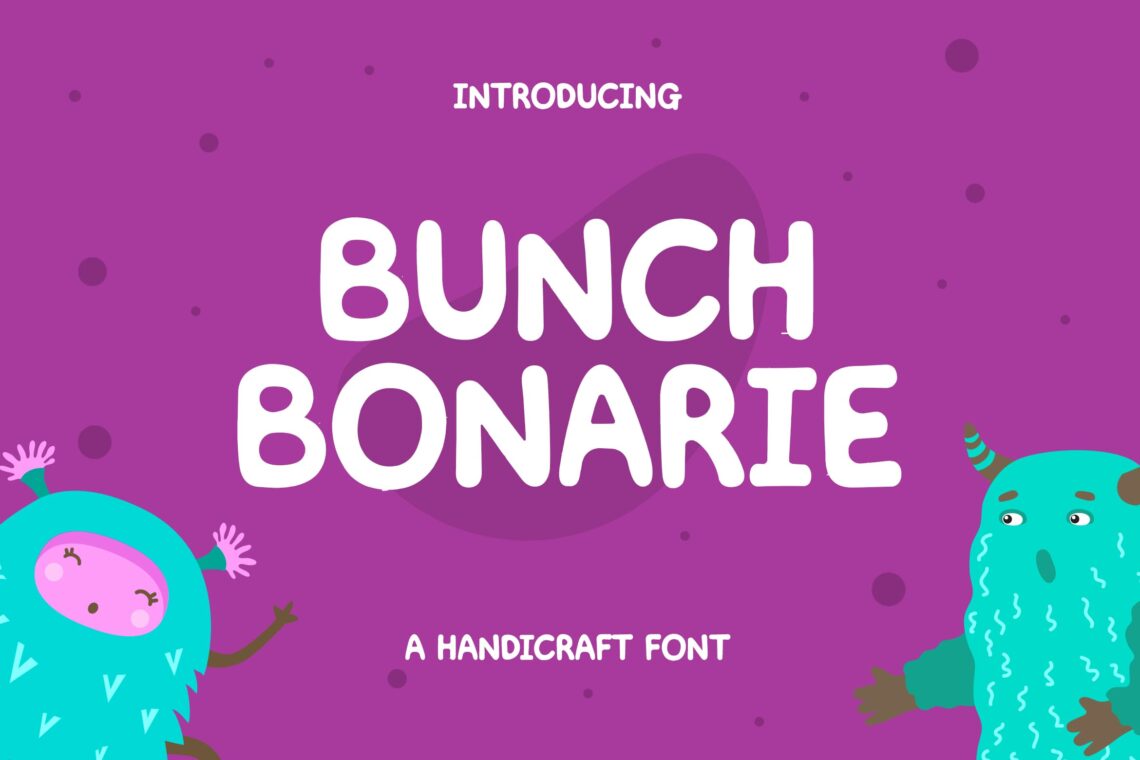
5. Brightoven Font
Looking for a good font for a resume? use this. It is an art deco-style font that has a neat and line edge. The line inside builds attractive touch and makes the initial letter of it becomes clear. It is hard performance like a paintbrush over the basic letter. In addition, it is unique. The great typography attracts people’s attention. Brightoven Font is simple and upright. It shows a formal and clean impression. This attractive and premium font is perfect for your resume since it is clear enough.
You may think it has a sleek typeface which is perfect if you want to portray yourself as more on the logical and analytical side of things. On the other hand, it is better than having something creative and artistic. Sharp lines and edges depict strength, dominance, and precision
You will benefit more from choosing this stylish font as your resume because it represents your work and skills as a creative. If you’re in a creative field like advertising or graphic design, you may have this just to show who you are. However, keep in mind that your resume is still a formal document that needs to be clear and easy enough to read.
6. Headway
Rounded shapes tend to look softer and more approachable, so if you want a simple sans-serif font that looks neat and professional without looking too formal, then Givonic’s rounded strokes can help you achieve it. It easily blends with other typefaces and comes in different weights ranging from thin to extra bold so you can use it on both your headings and body text.
15. Rockbubble Display
Having a high contrast between thick and thin strokes creates an elegant and warm typeface that will look great on any resume. This serif also contributes to its increased readability.